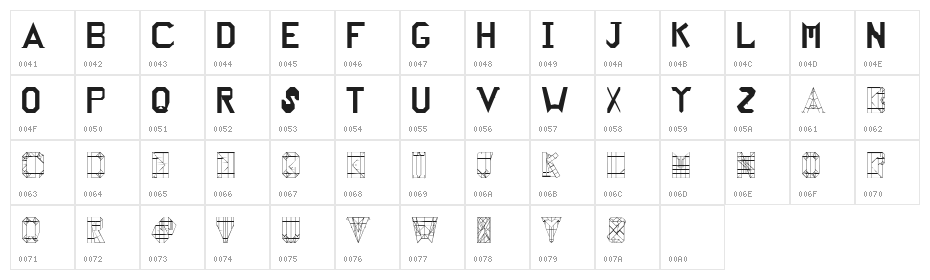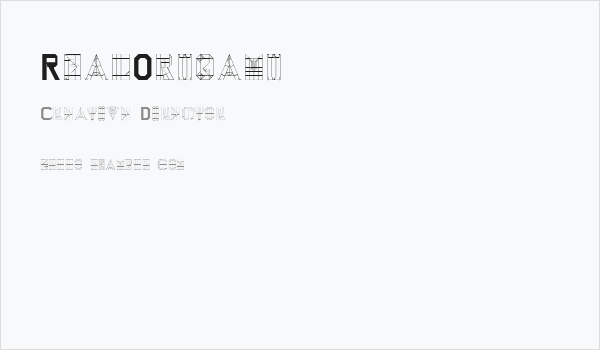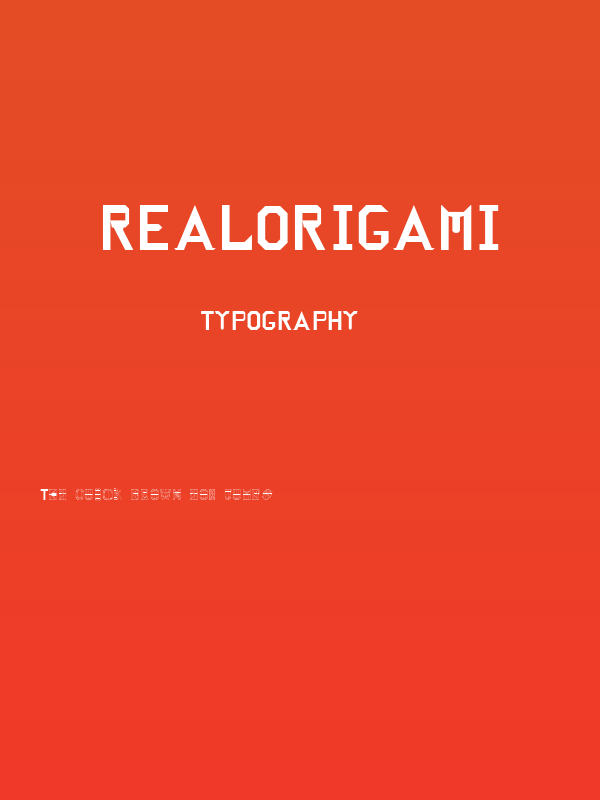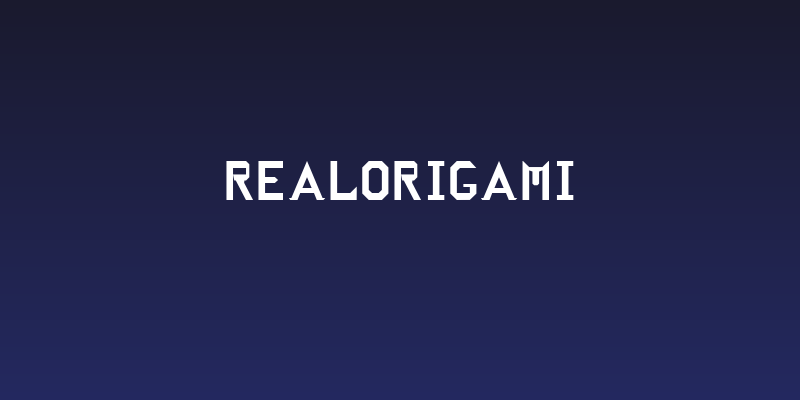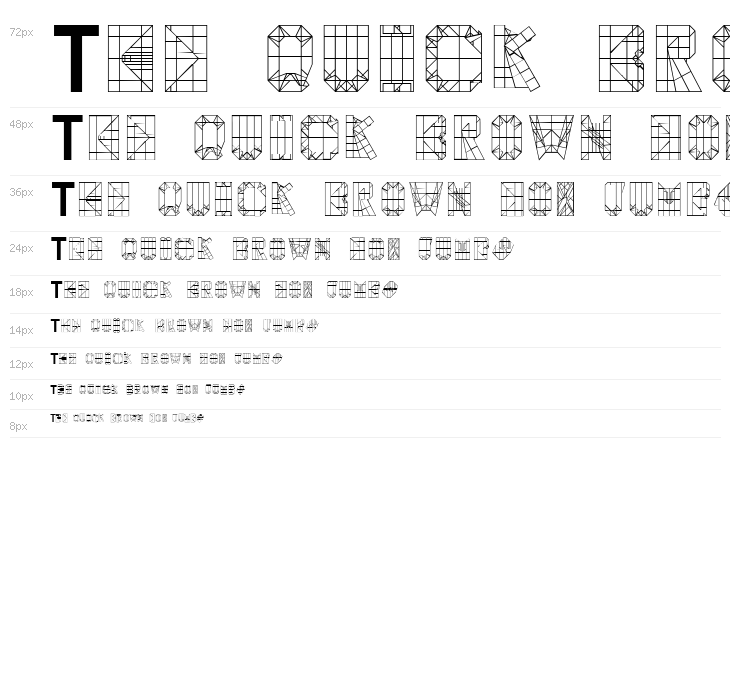
RealOrigami Font
This font features a bold, geometric design inspired by the art of origami. Each letter is crafted with sharp angles and straight lines, creating a striking and modern appearance. The uppercase letters are particularly bold, with a strong presence that commands attention. The design incorporates elements that mimic the folds and creases of paper, giving it a unique and artistic flair. This font is perfect for projects that require a contemporary and creative touch, such as branding, posters, and digital artwork. The intricate details in the design make it stand out, while the overall structure remains clean and legible.
| Proposed Projects | Ideal for branding, posters, digital artwork, and any project requiring a creative and modern touch. |